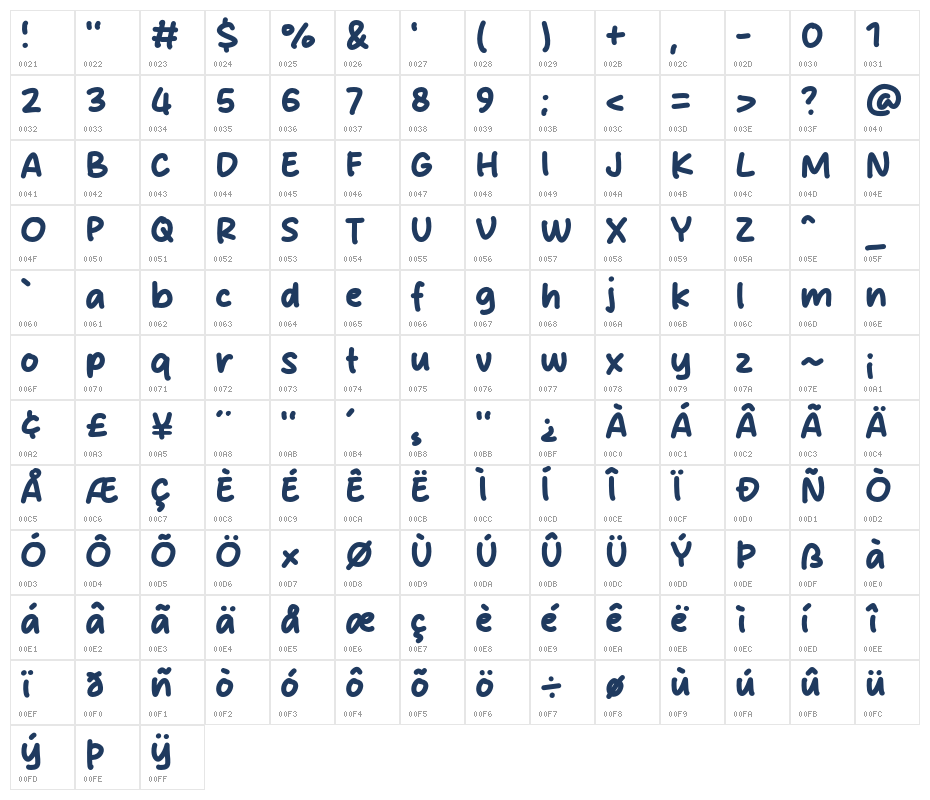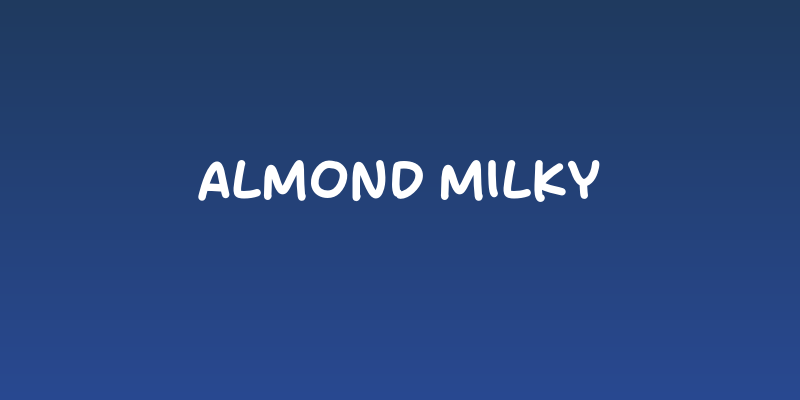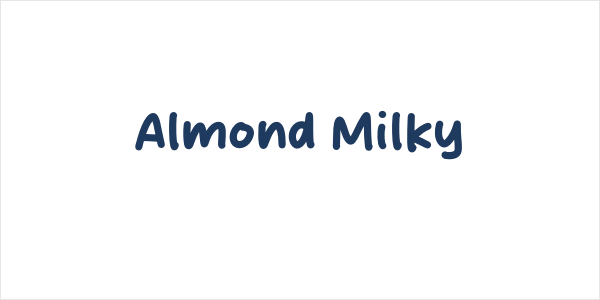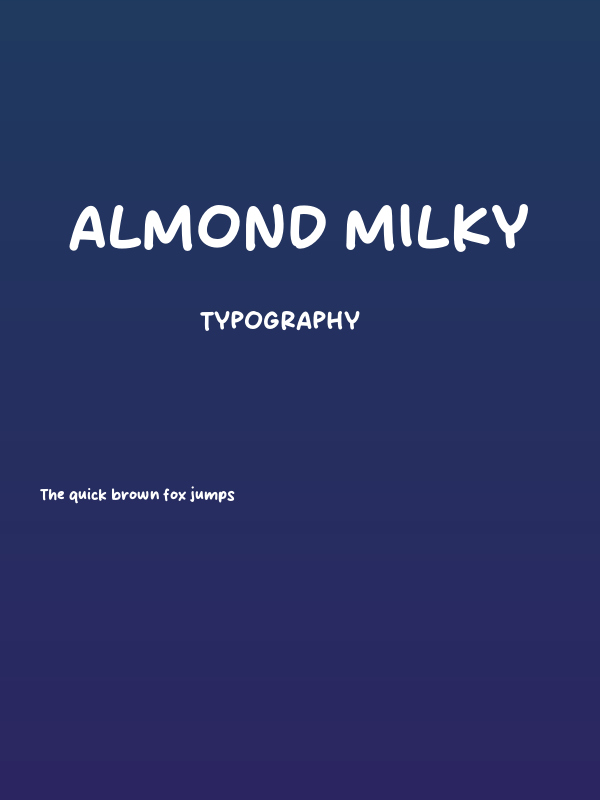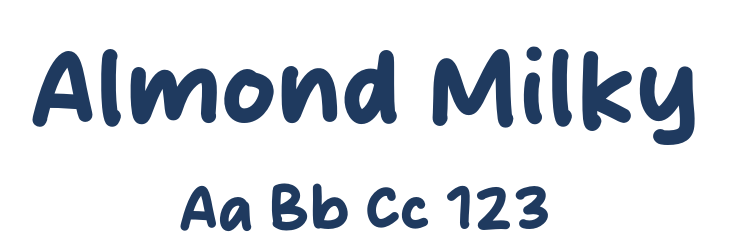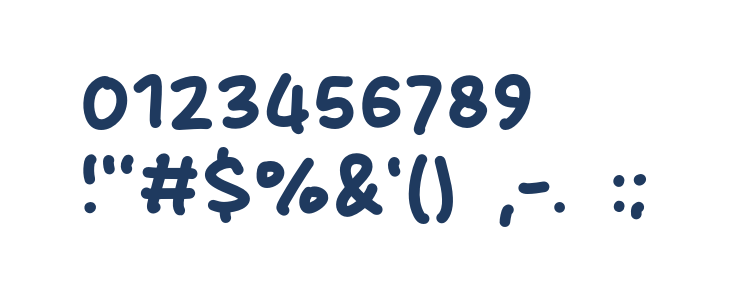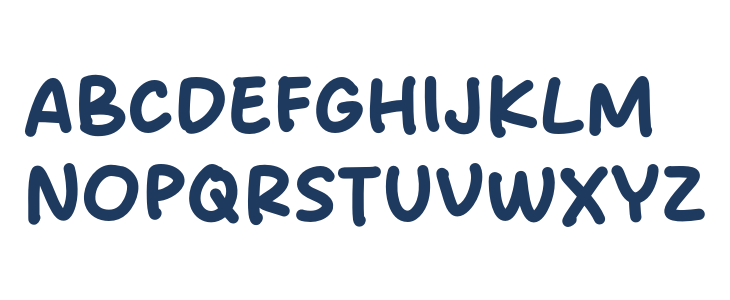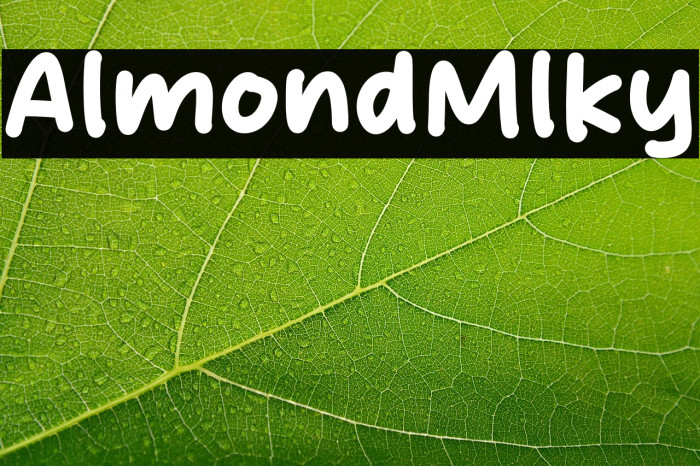
Almond Milky Font
Almond Milky Description
A playful, rounded, handwritten style font with a casual and friendly appearance.
Almond Milky
| Overall Style | Casual, Friendly, Playful |
| Use Case | Headlines, Body text, Logos, Invitations |